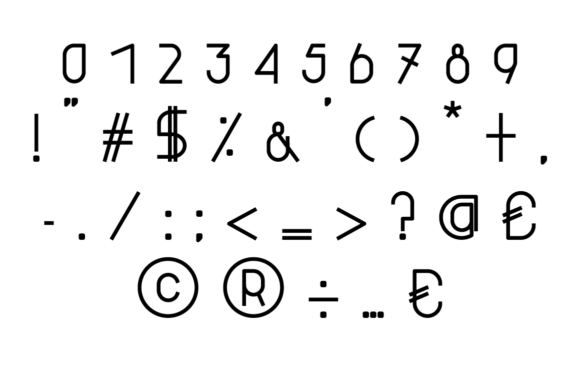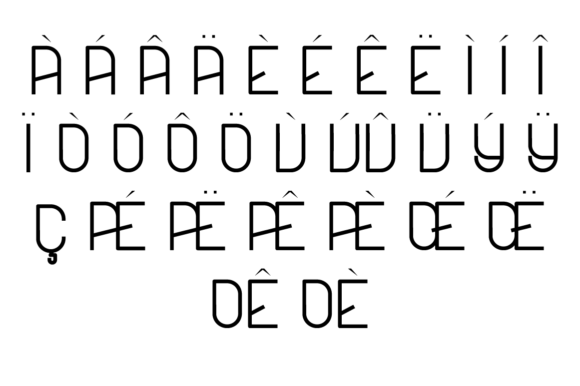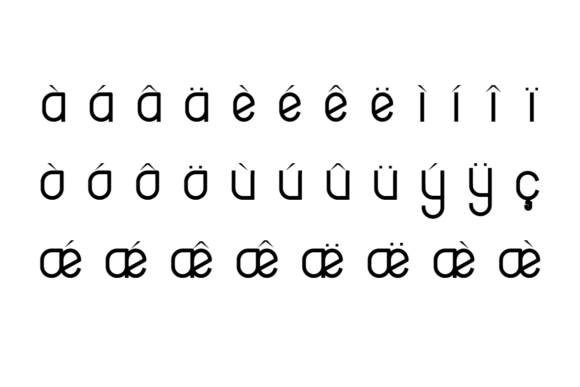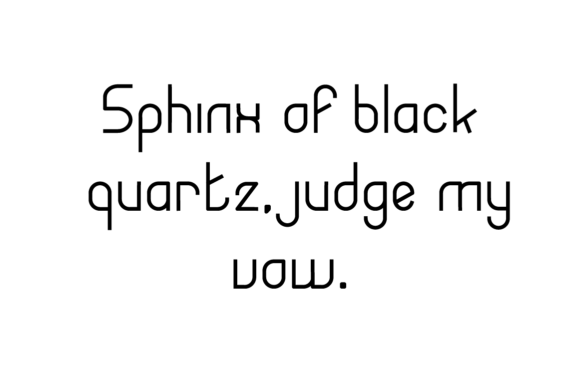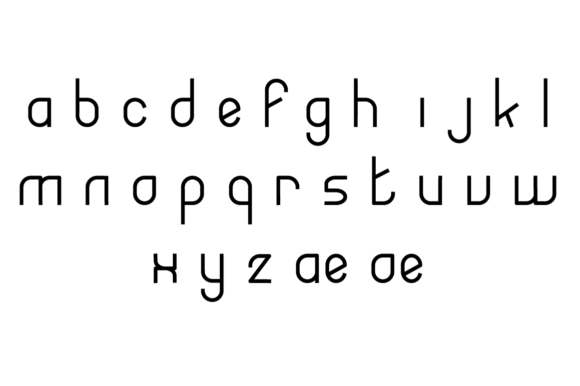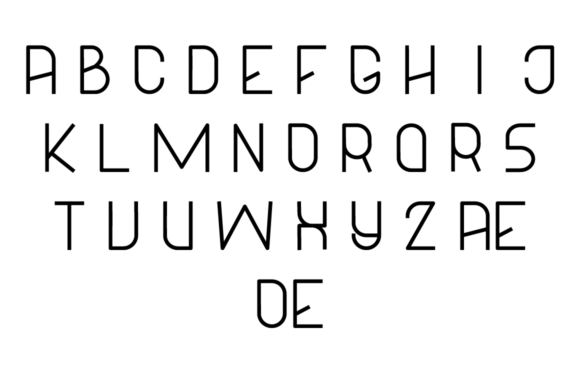
Discover the Unique Charm of Angulus Font: Elevate Your Design with Style and Sophistication
In the world of typography, fonts play a crucial role in conveying the message and aesthetic of a design. Among the numerous fonts available, Angulus Font stands out for its distinctive blend of softness and hard angles, offering a stylish and vintage appeal that can elevate any design project. In this article, we’ll explore the characteristics, benefits, and uses of Angulus Font, making it a valuable resource for designers and crafters looking to add a touch of sophistication to their work.
What is Angulus Font?
Angulus is a beautiful and extensive sans serif font that boasts multiple weights, filled with airiness and style. This font is a perfect combination of soft curves and sharp angles, creating a visually appealing contrast that sets it apart from other fonts. The unique blend of softness and hard angles gives Angulus Font a distinctive look that can add a touch of elegance and sophistication to any design.
Key Features of Angulus Font
- Multiple Weights: Angulus Font comes in multiple weights, allowing designers to choose the perfect weight to suit their design needs. Whether you’re looking for a light and airy feel or a bold and statement-making look, Angulus Font has got you covered.
- Softness and Hard Angles: The combination of soft curves and sharp angles gives Angulus Font its unique charm. This contrast creates a visually appealing effect that can add depth and interest to your design.
- Sans Serif: As a sans serif font, Angulus Font offers a clean and modern look that’s perfect for designs that require a touch of sophistication.
- Airiness and Style: Angulus Font is filled with airiness and style, making it perfect for designs that require a light and elegant feel.
Benefits of Using Angulus Font
So, why choose Angulus Font for your design project? Here are some benefits that make it an excellent choice:
- Unique and Distinctive: Angulus Font offers a unique and distinctive look that sets it apart from other fonts. Its blend of softness and hard angles creates a visually appealing effect that can add a touch of sophistication to your design.
- Versatile: With multiple weights and a sans serif design, Angulus Font is versatile and can be used for a wide range of design projects, from logos and branding to headings and body text.
- Vintage Appeal: Angulus Font has a vintage appeal that can add a touch of nostalgia and elegance to your design.
- Elegant and Sophisticated: Angulus Font is perfect for designs that require an elegant and sophisticated look. Its airiness and style make it an excellent choice for designs that need to convey a sense of luxury and refinement.
Uses of Angulus Font
Angulus Font is a versatile font that can be used for a wide range of design projects, including:
- Logos and Branding: Angulus Font is perfect for logos and branding projects that require a unique and distinctive look.
- Headings and Titles: With its multiple weights and elegant design, Angulus Font is an excellent choice for headings and titles.
- Body Text: Angulus Font can also be used for body text, providing a clean and modern look that’s easy to read.
- Advertising and Marketing: Angulus Font is perfect for advertising and marketing materials that require a touch of sophistication and elegance.
| Author | hamelinckmichael |
In conclusion, Angulus Font is a beautiful and extensive sans serif font that offers a unique blend of softness and hard angles. Its multiple weights, airiness, and style make it perfect for designs that require a touch of sophistication and elegance. Whether you’re a designer or crafter, Angulus Font is an excellent choice for any design project that needs a distinctive and stylish look. So, why not give Angulus Font a try and elevate your design to the next level?